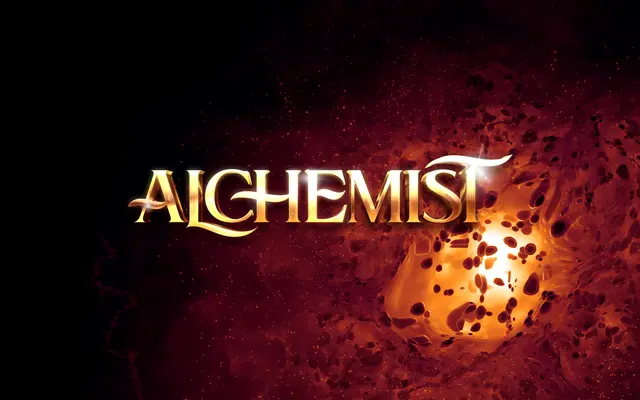
Alchemist
A semi-condensed, high-contrast display serif by Jason Carne, drawing on ornate sign-painting and lettering traditions for headlines and cinematic titling.
Inspired by early sign-painting and lettering books as well as natural forms, this display face pairs classic Roman proportions with decorative detail and strong contrast. The family ships with over 100 alternate characters and more than 40 ligatures across a 500+ character set, giving designers room to vary compositions considerably. Suited to signage, packaging, gaming and cinematic titles where ornate weight and visual drama are needed.
A semi-condensed, high-contrast Roman display face with ornate, sign-painting influences. Its decorative character and primary use case in headlines and titles places it firmly in the display category.